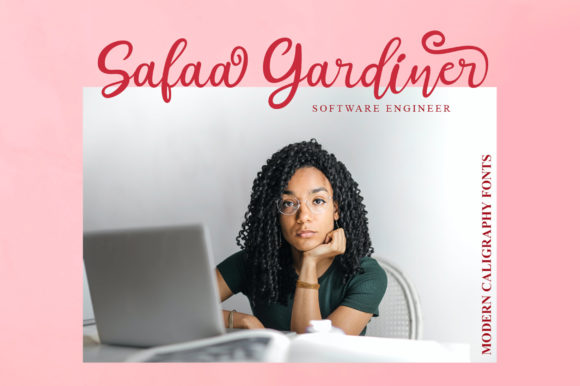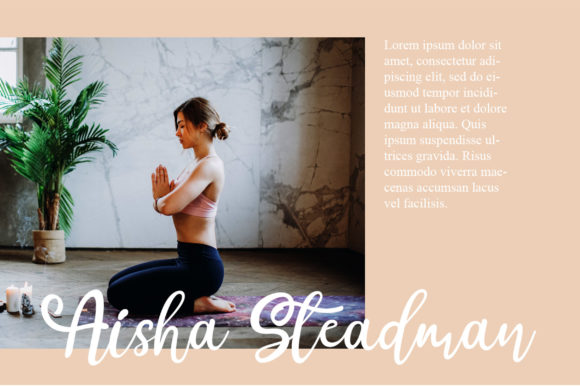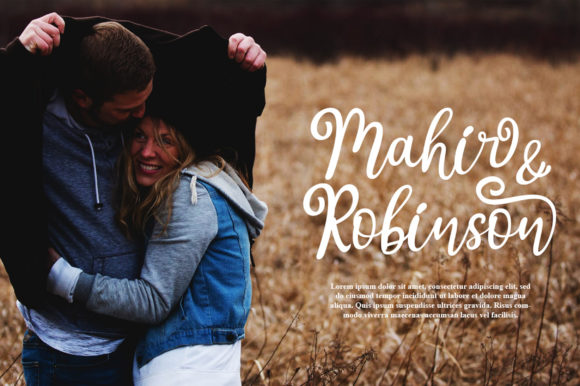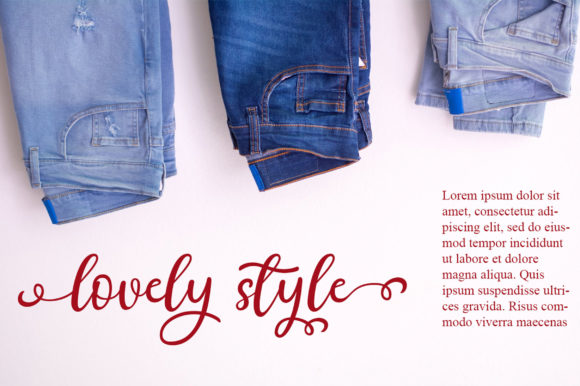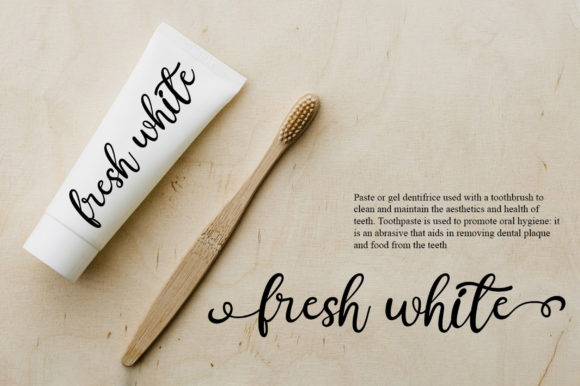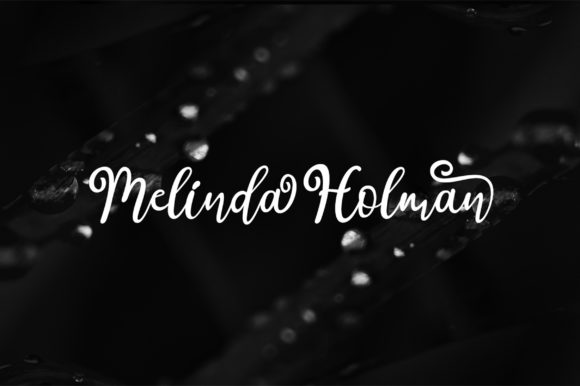
Love at First Sight: Unveiling the Come Valentine Font
As a designer, have you ever stumbled upon a font that makes your heart skip a beat? For me, that moment came when I first laid eyes on the Come Valentine Font. Its elegant and flowing handwritten script seemed to transport me to a world of romance and sophistication.
The Come Valentine Font is more than just a pretty face – it’s a versatile tool designed to elevate your projects to new heights. With its varying baseline, smooth lines, gorgeous glyphs, and stunning alternates, this font is the perfect companion for any designer looking to add a touch of class and whimsy to their work.
Whether you’re working on a wedding invitation, a romantic novel, or a branding campaign, the Come Valentine Font is sure to make your design shine. Its unique blend of classic calligraphy and modern flair makes it a valuable asset for any designer looking to fall in love with their projects all over again.
Key Features of “Come Valentine Font”
- Unique Characteristics: The “Come Valentine Font” features a unique, cursive script style with elegant flourishes, perfect for creating romantic and whimsical designs.
Designer Review: “Come Valentine Font”
Overall, I think “Come Valentine Font” is a lovely font that can add a touch of romance to any project. ✨ Its flowing script and cursive connections evoke a sense of elegance and sophistication, making it perfect for wedding invitations, valentine’s day cards, or any other project that needs a touch of whimsy.
The font is well-designed, with a clear and readable structure. ✨ It’s easy to use, and the font size and spacing can be adjusted to suit your needs. The font is also highly customizable, allowing you to change the color, style, and even add effects to make it stand out.
However, there are some limitations to keep in mind. ⚠️ The font may not be suitable for projects that require a more modern or minimalist look, as its flowing script may come across as too ornate. ⚠️ Additionally, the font may not be compatible with all operating systems or devices, which could lead to display issues.
- May not be suitable for modern or minimalist projects
- May not be compatible with all operating systems or devices
Overall, I think “Come Valentine Font” is a great choice for projects that require a touch of romance and elegance. While it may have some limitations, its beautiful design and high level of customization make it a great option for designers looking to add some whimsy to their projects.
The “Come Valentine Font” is ideal for:
– Valentine’s Day cards and invitations
– Romantic gift tags and labels
– Any design that requires a playful, cursive font.
– Use the “Come Valentine Font” in combination with other playful fonts for a unique look.
– Experiment with different font sizes and colors to add visual interest.
– Consider using the font for headings or titles to add a touch of romance.
Alternatives to Come Valentine Font for Designers
Great Vibes is a beautiful, elegant script font perfect for wedding invitations, greeting cards, and other romantic designs. It features flowing connections and soft lines, making it ideal for creating a whimsical and dreamy atmosphere.
Comparison to Come Valentine Font: While both fonts have a romantic feel, Great Vibes is more elegant and refined, making it suitable for high-end designs. Come Valentine Font is more playful and cursive, better suited for casual and whimsical designs.
What font sizes and styles are available in Come Valentine Font?
Come Valentine Font includes a range of font sizes and styles, including regular, italic, bold, and bold italic. This allows designers to create a variety of visual effects and emphasis in their designs. The font also includes a range of language support, including Latin, Cyrillic, and Greek scripts.